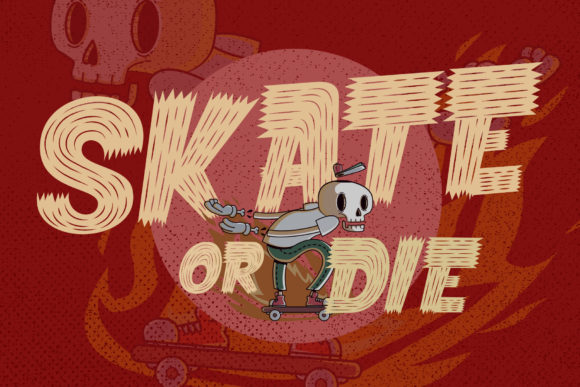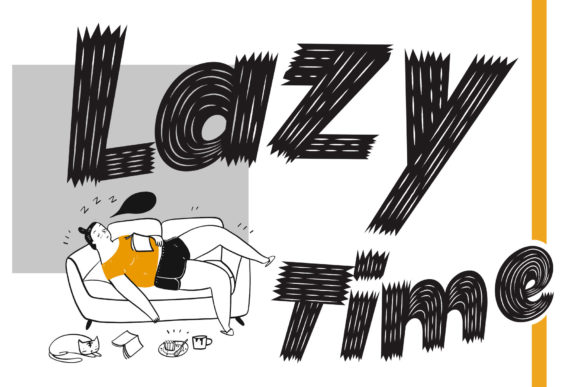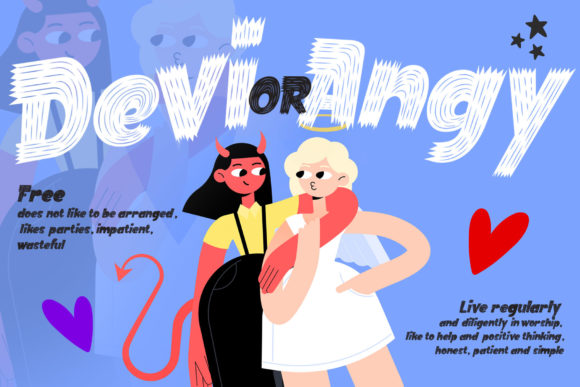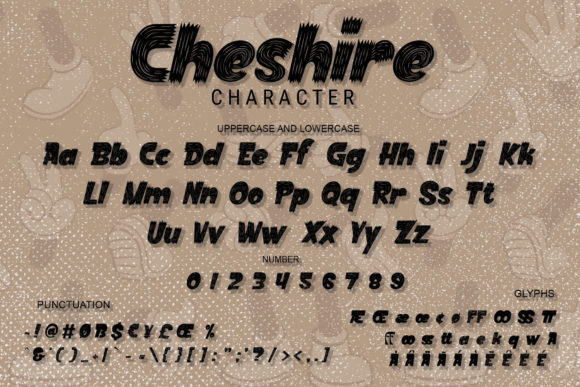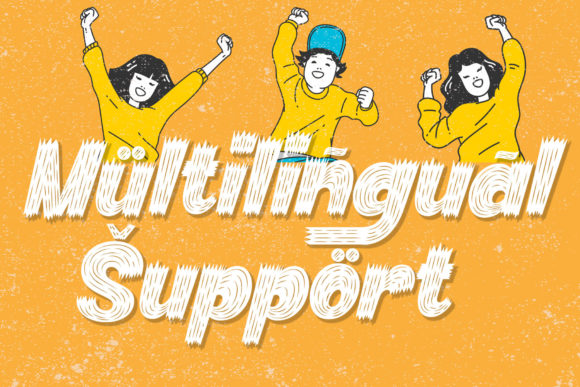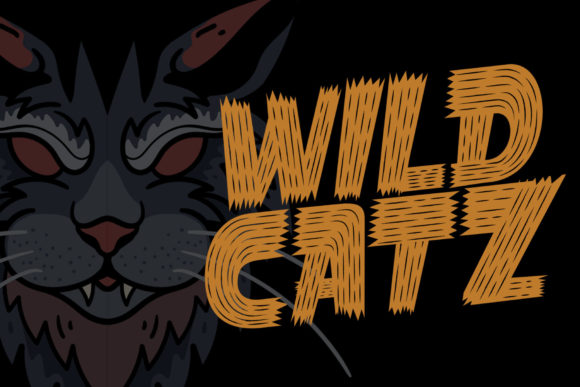
Discover the Bold and Versatile Cheshire Font
Are you tired of using the same old fonts in your designs? Look no further than the Cheshire Font, a cool, bold, and thick lettered display font that’s sure to elevate your creations. Whether you’re a designer, crafter, or simply someone who loves to dabble in typography, Cheshire is an incredible asset to have in your font library.
What Makes Cheshire Font So Special?
Cheshire Font is a game-changer for anyone looking to add a touch of personality and style to their designs. Its bold and thick lettering makes it perfect for creating eye-catching headlines, titles, and captions that demand attention. But what really sets Cheshire apart is its versatility. No matter the topic or theme, this font can adapt and shine, making it an excellent addition to any design project.
Key Features of Cheshire Font
- Bold and Thick Lettering: Cheshire Font features bold and thick lettering that’s perfect for creating eye-catching headlines and titles.
- Versatile: This font can be used on any topic or theme, making it an excellent addition to any design project.
- Easy to Read: Despite its bold and thick lettering, Cheshire Font is easy to read, making it perfect for use in a variety of design applications.
- High-Quality: Cheshire Font is a high-quality font that’s designed to deliver exceptional results in any design project.
How to Use Cheshire Font in Your Designs
Cheshire Font is incredibly easy to use and can be incorporated into a variety of design projects, including:
- Graphic Design: Use Cheshire Font to create eye-catching posters, flyers, and brochures that demand attention.
- Digital Design: Add Cheshire Font to your website or social media graphics to create bold and eye-catching headlines and titles.
- Crafting: Use Cheshire Font to create beautiful and unique craft projects, such as handmade cards and invitations.
Tips for Getting the Most Out of Cheshire Font
To get the most out of Cheshire Font, here are a few tips to keep in mind:
- Experiment with Different Colors: Cheshire Font looks great in a variety of colors, so don’t be afraid to experiment and find the perfect hue for your design.
- Use it as a Headline Font: Cheshire Font is perfect for use as a headline font, so try using it to create bold and eye-catching titles.
- Pair it with Other Fonts: Cheshire Font pairs well with a variety of other fonts, so try experimenting with different combinations to find the perfect look for your design.
| Font Name | Cheshire Font |
| Author | Gumacreative |
In conclusion, Cheshire Font is an incredible asset to have in your font library. Its bold and thick lettering, versatility, and ease of use make it perfect for a wide range of design projects. Whether you’re a designer, crafter, or simply someone who loves typography, Cheshire Font is sure to elevate your creations and help you stand out from the crowd.